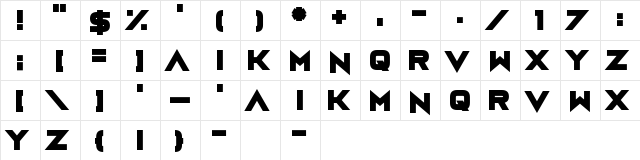
Rumutocu Regular
| Designer | NAL |
Design Context for Rumutocu Typeface
Rumutocu takes a measured approach to typography — its balanced proportions and neutral character make it a reliable workhorse for both digital and print work.